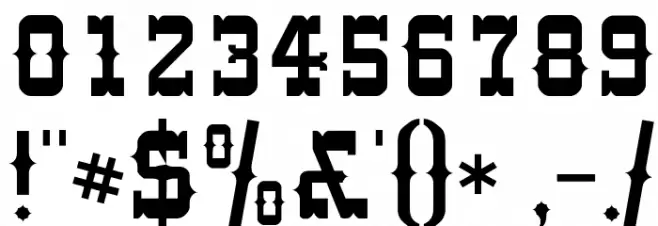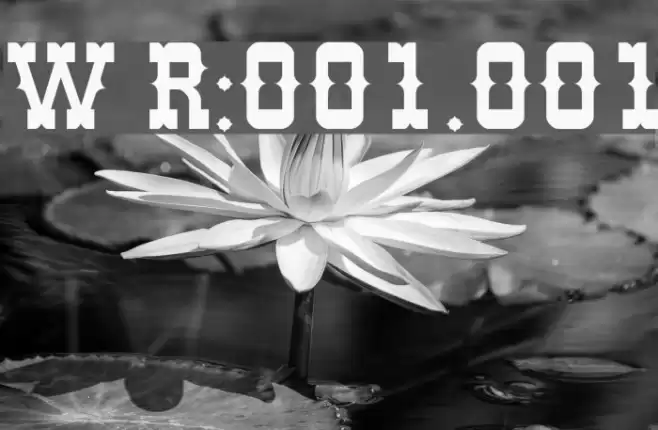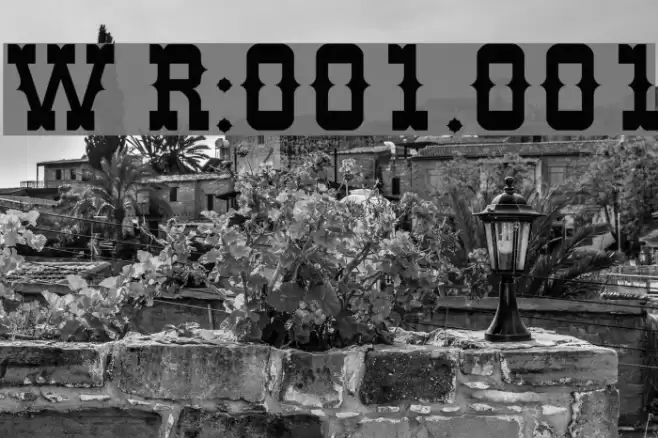
Western Regular:001.001 Font
Western Regular:001.001 Description
This font embodies a bold and rugged aesthetic reminiscent of the Old West. Its slab serif style features thick, block-like serifs that give it a sturdy and robust appearance. The characters are well-defined with a strong presence, making it ideal for capturing attention. The uppercase letters are particularly striking, with a uniform height and width that contribute to a cohesive look. The lowercase letters maintain the same boldness, ensuring readability while preserving the font's distinctive style. Numbers and special characters are crafted with the same attention to detail, providing a complete and versatile typeface.